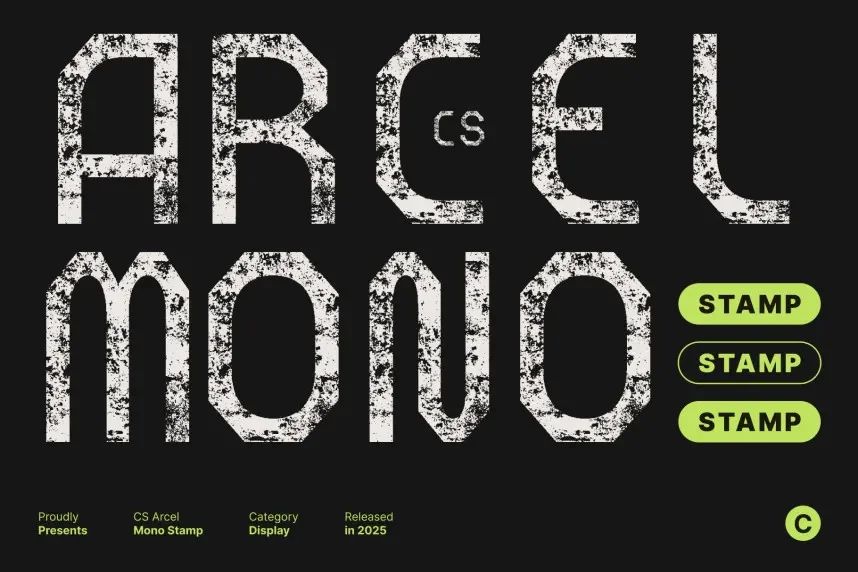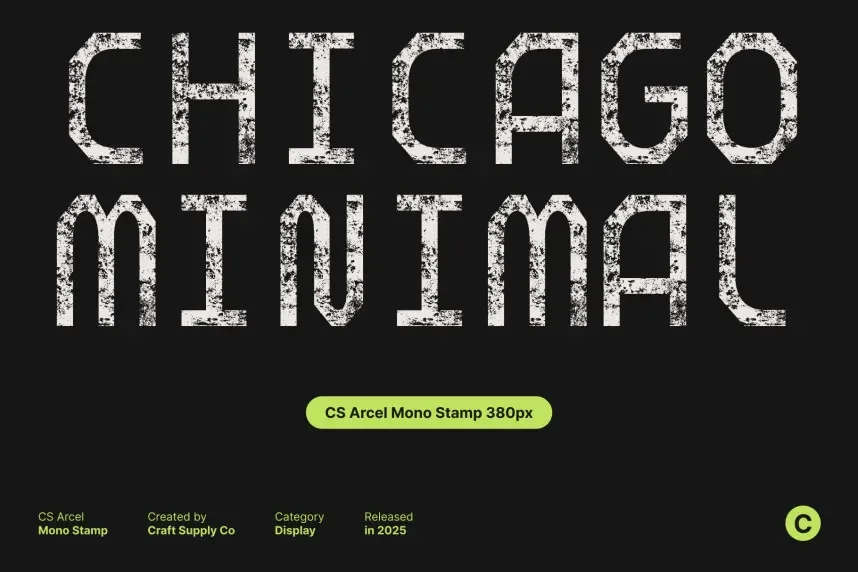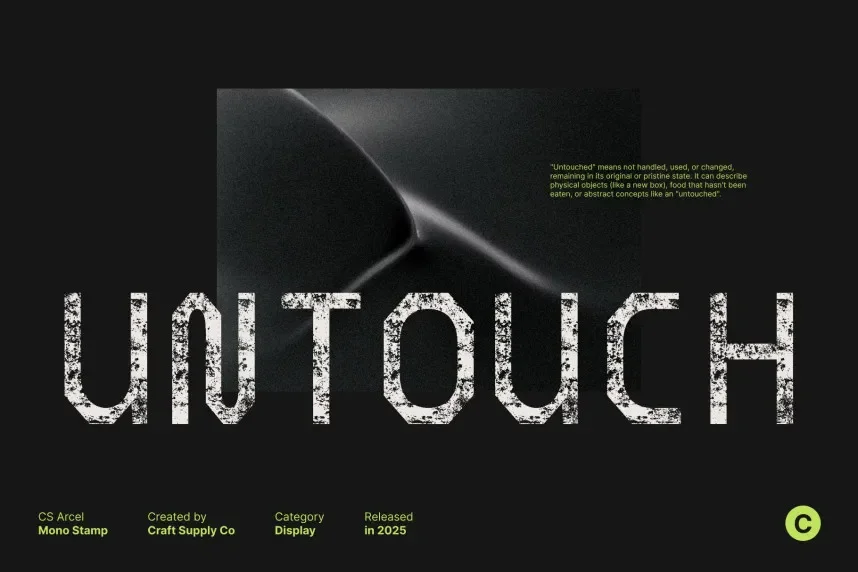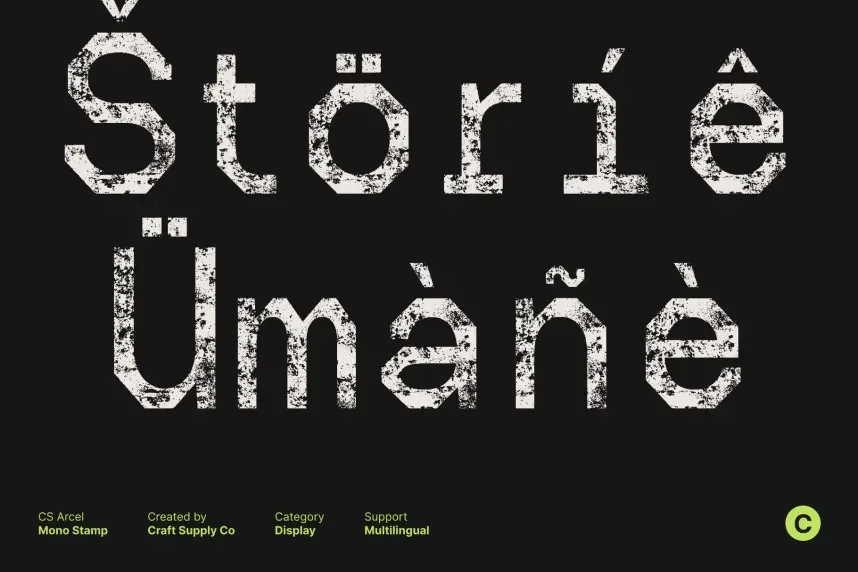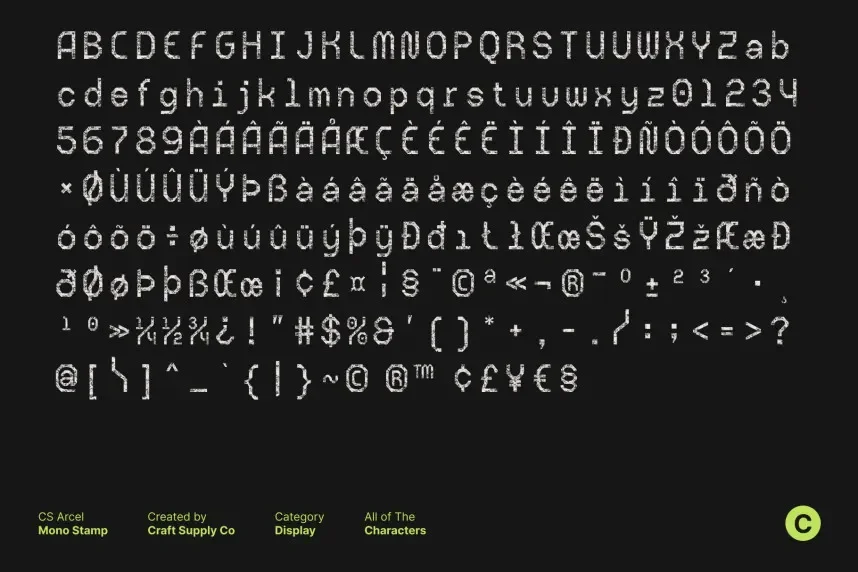
CS Arcel Mono Stamp Font addresses the need for strong, industrial-style typography in tech and branding projects. Its monospace structure makes it ideal for designs that require precise alignment and uniformity.
CS Arcel Mono Stamp is a monospace font with bold, geometric letterforms and a stamped texture that simulates industrial or retro printing styles. The even spacing makes it perfect for coding, tech interfaces, and data-heavy designs.